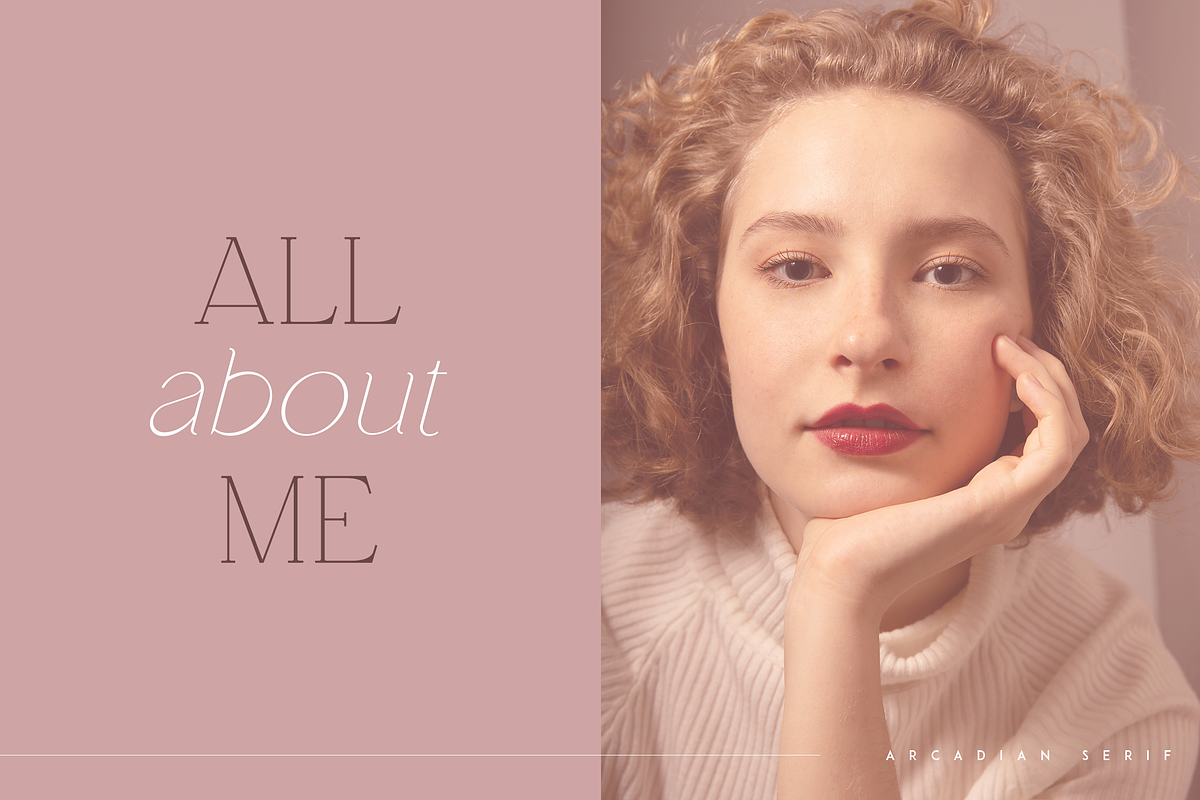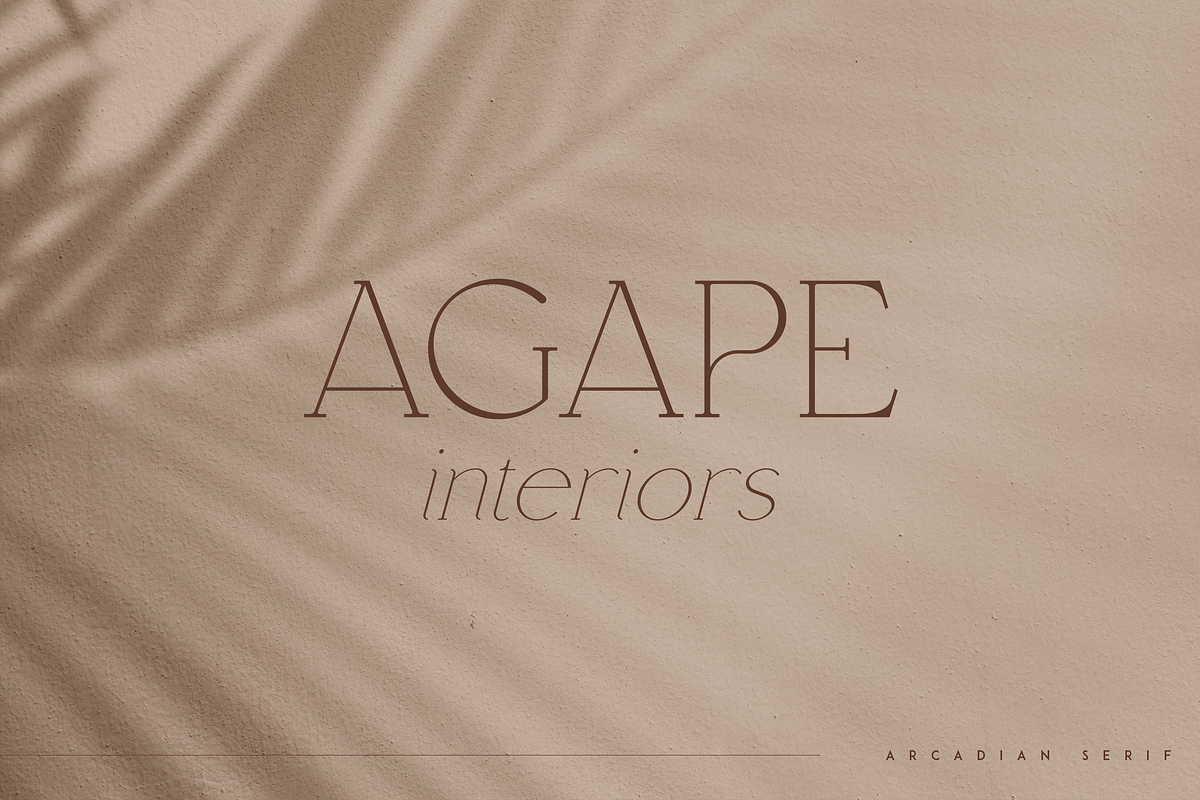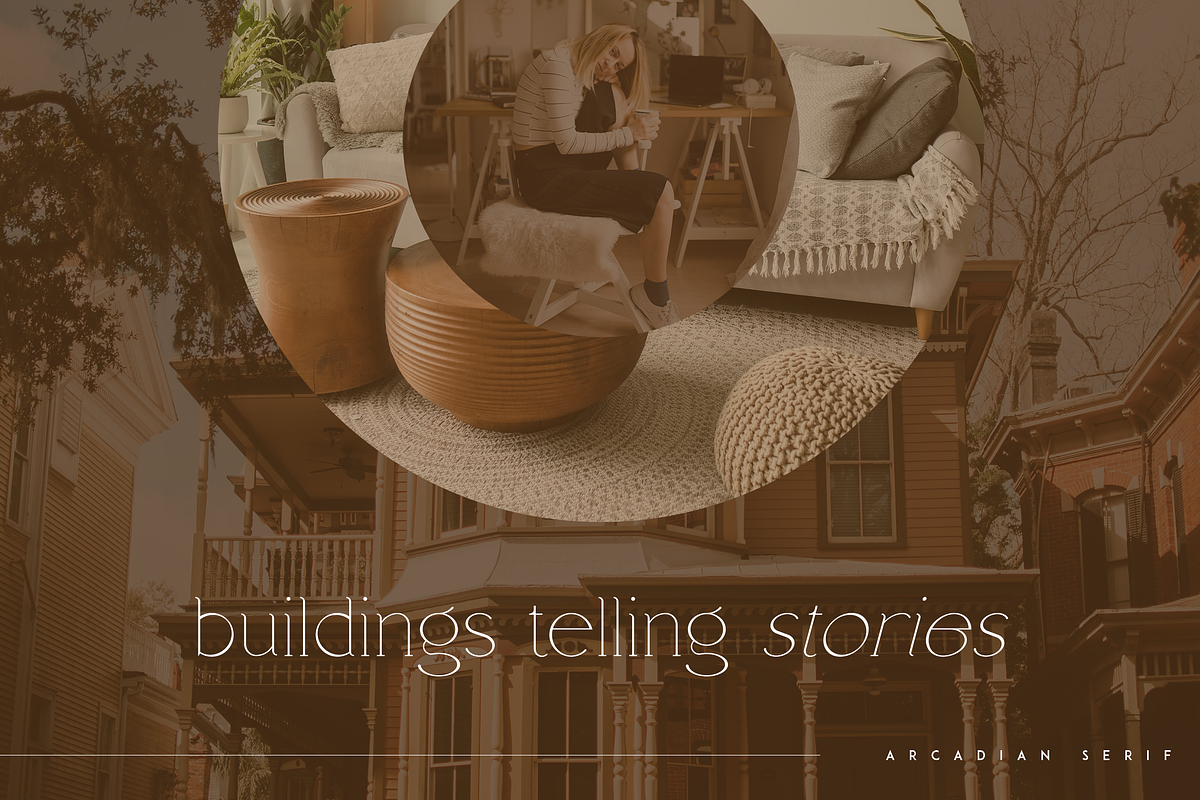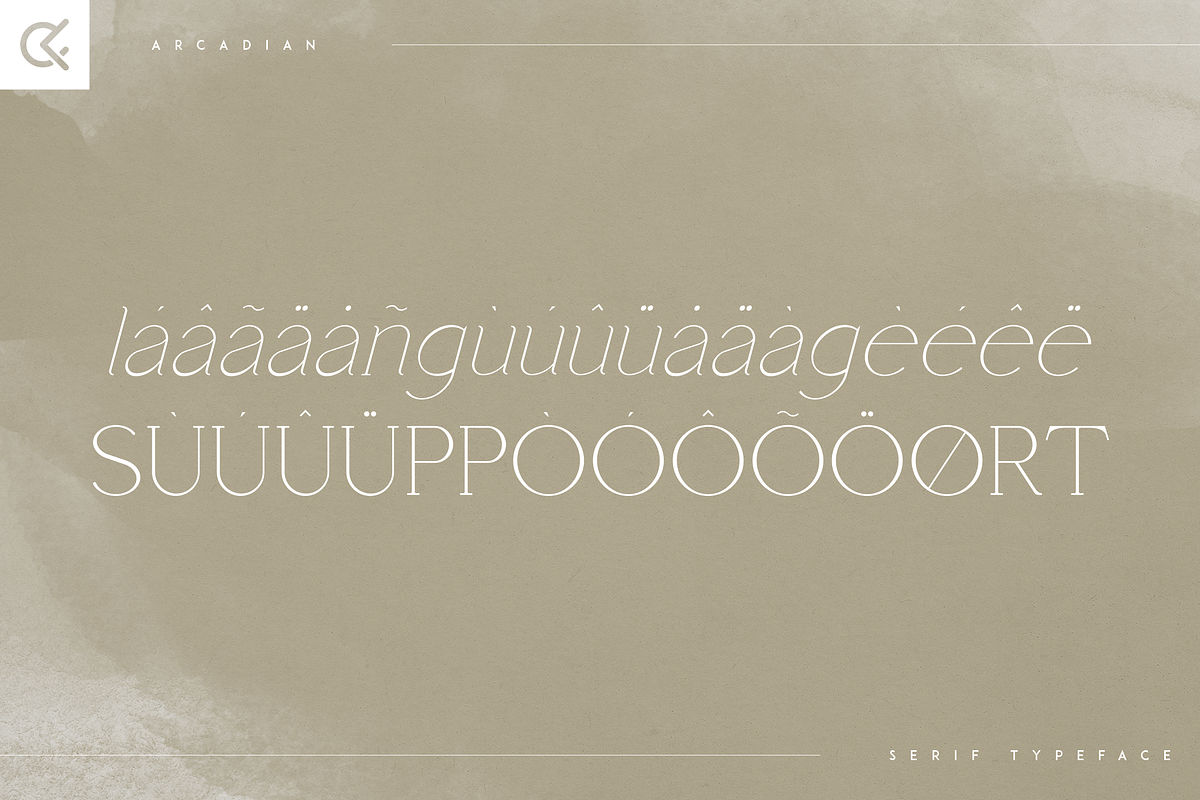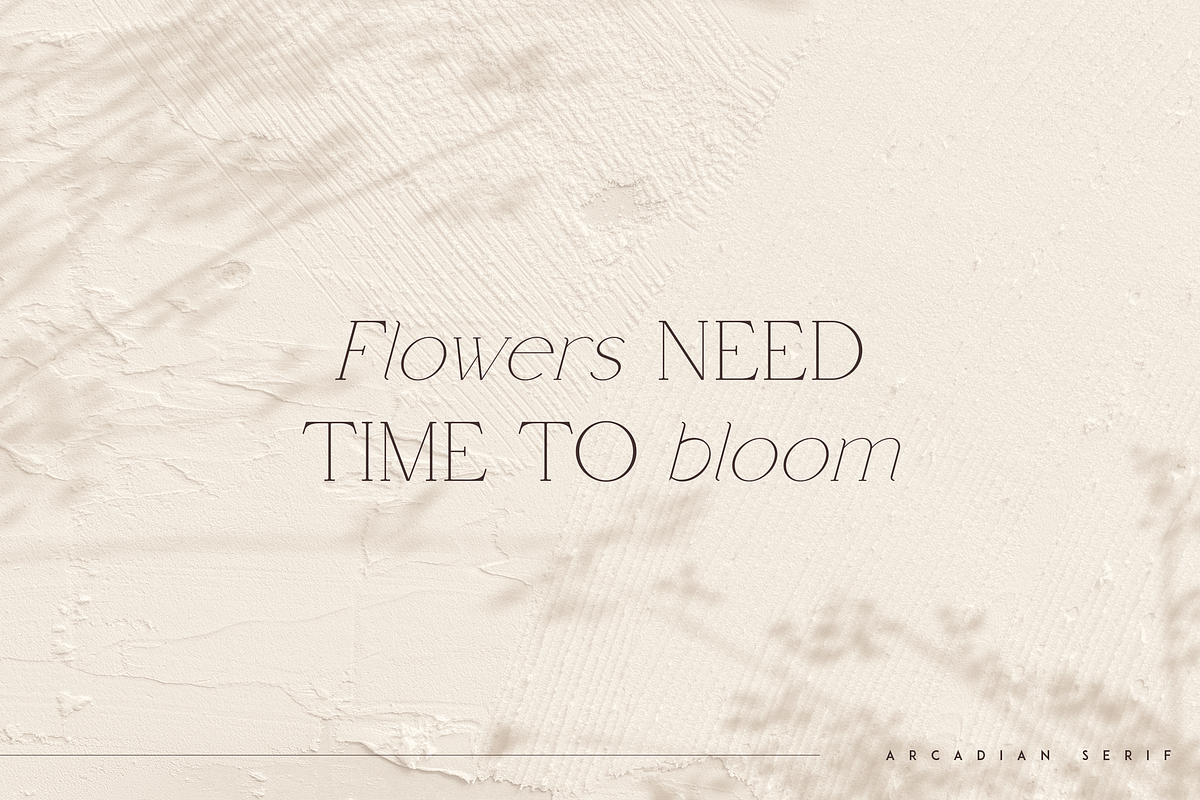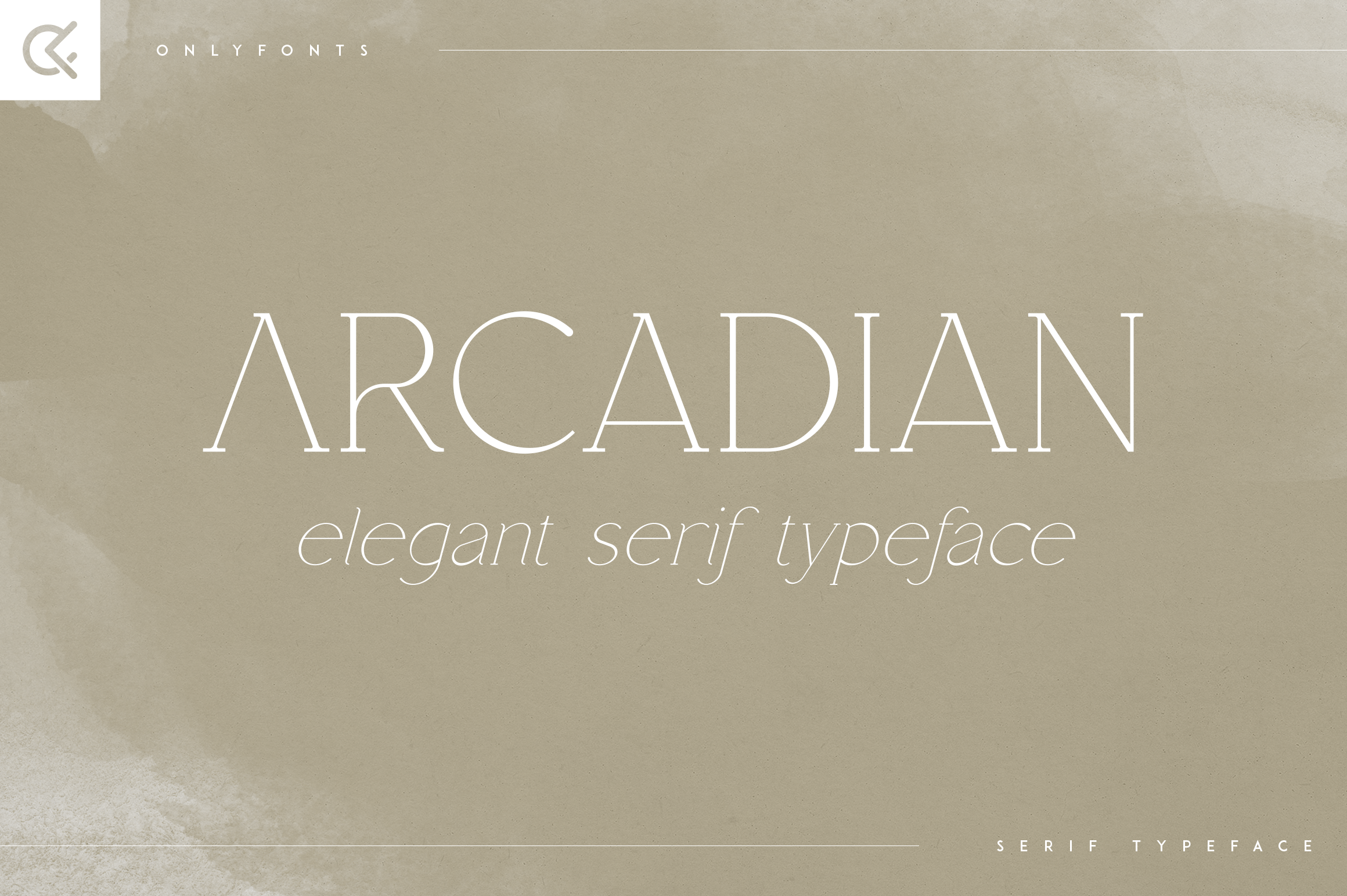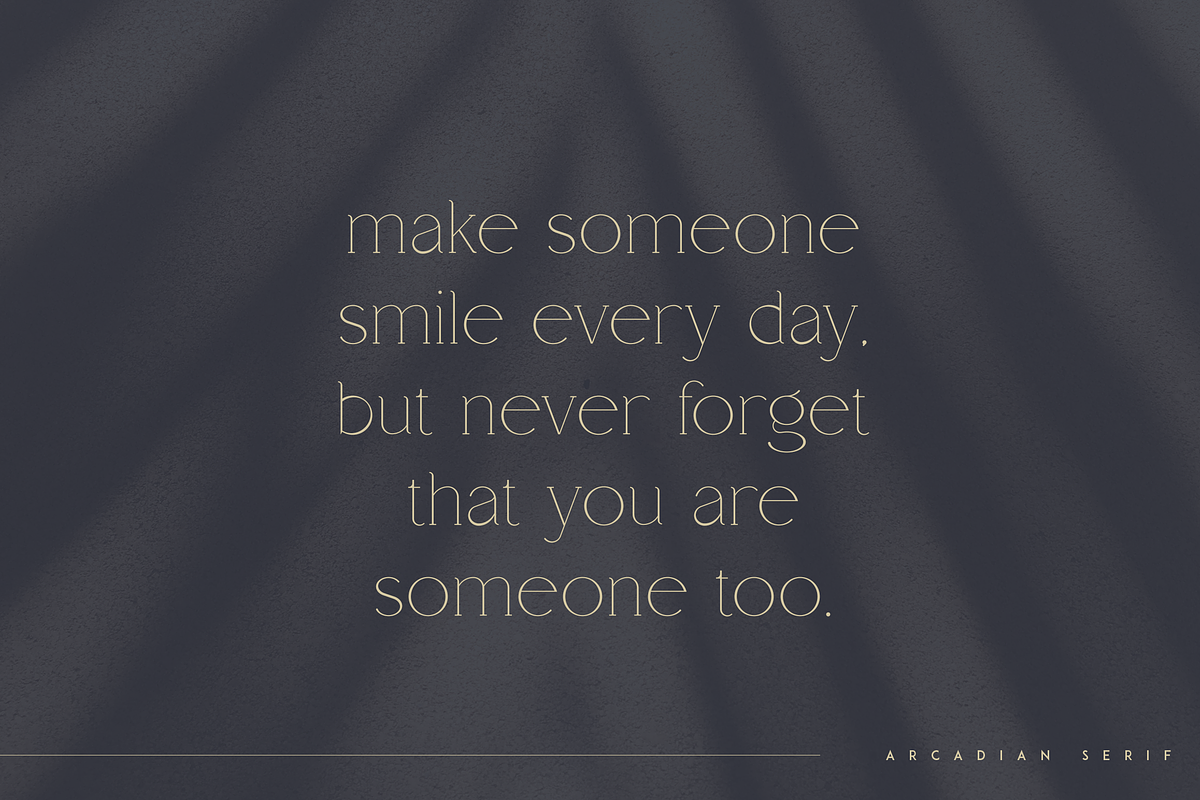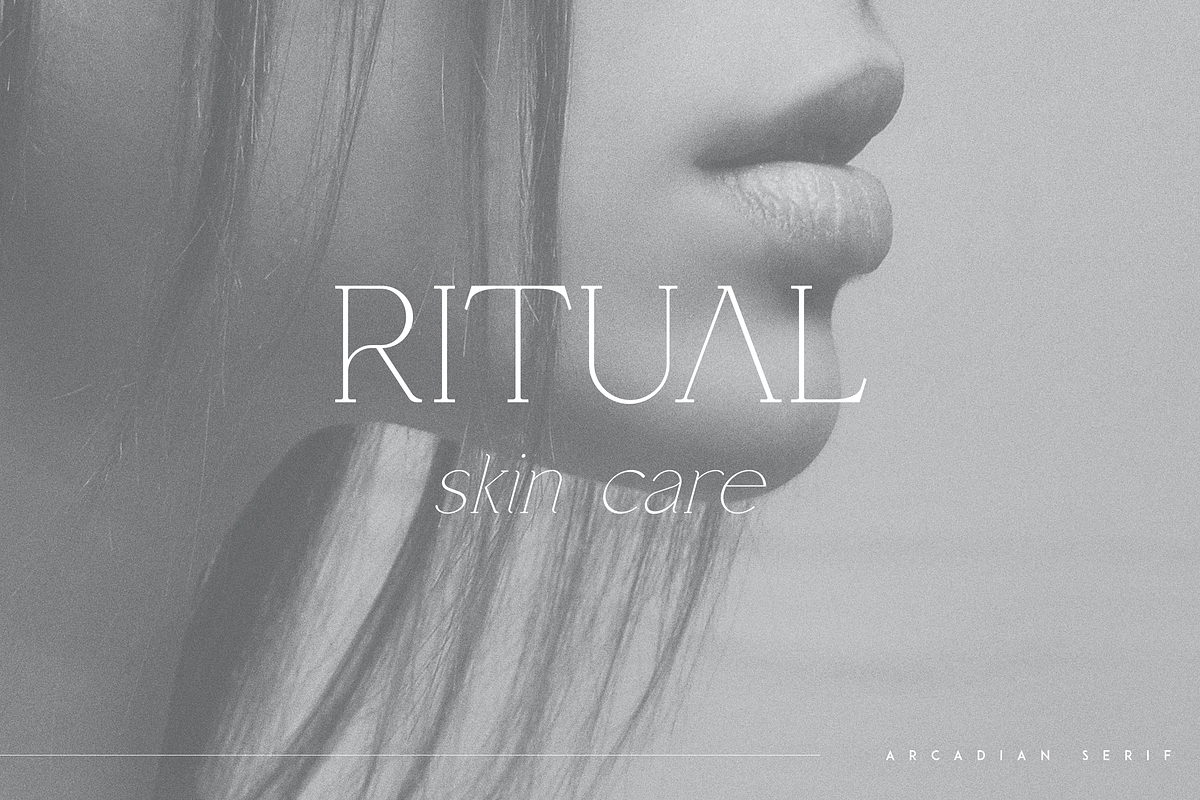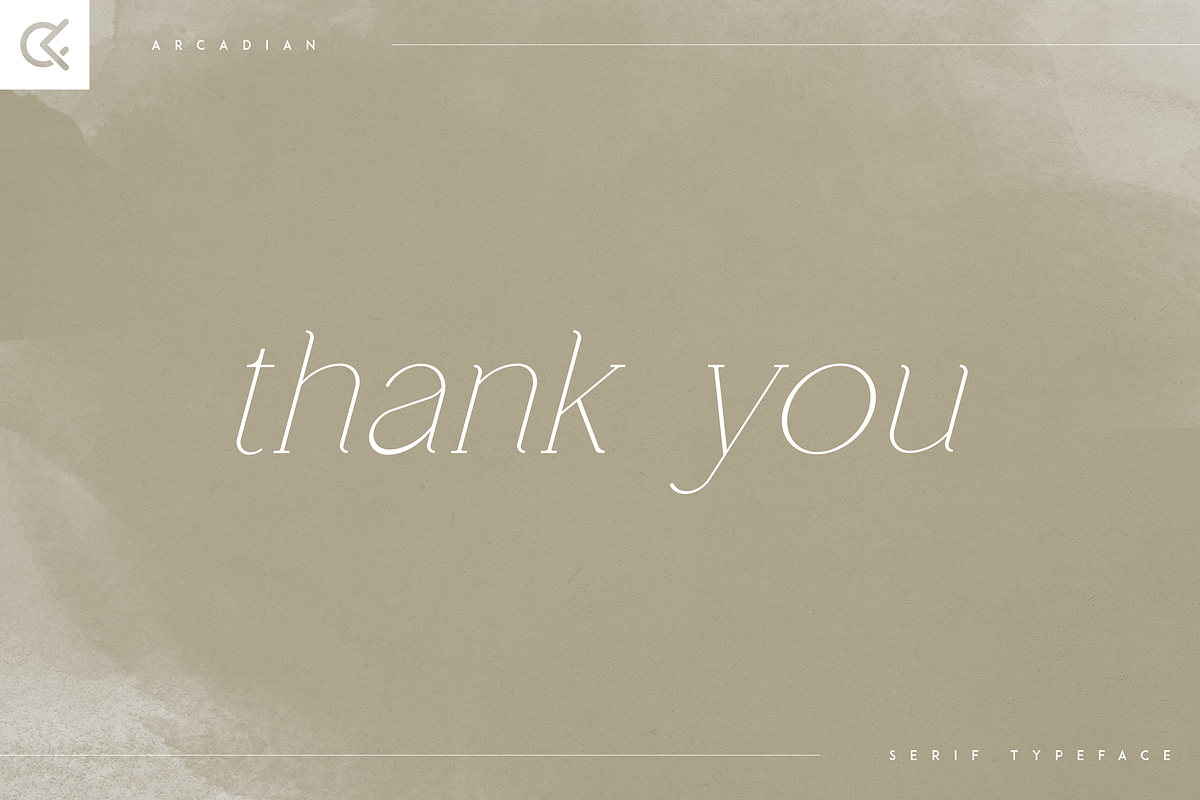
Arcadian - elegant serif typeface
Introducing Arcadian - elegant serif typeface
Arcadian is fragile and elegant typeface with alternate glyphs and multilingual support. It's a very versatile font that works great in large and small sizes.
This font is perfect for branding projects, home-ware designs, product packaging, magazine headers - or simply as a stylish text overlay to any background image.
- Uppercase, lowercase, numeral, punctuation & Symbol
- regular and italic
- alternate glyphs